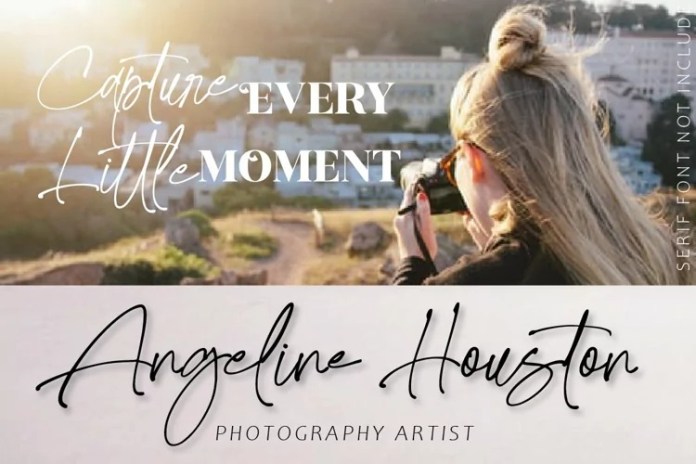
The Skytripe Handwritten Font is a modern handwritten font loaded with ligatures for that handwriting look. This font was created to look as close to a natural handwritten script, as possible by including lowercase alternates, ligature and underlines. Perfect for any awesome projects that need hand writing taste.